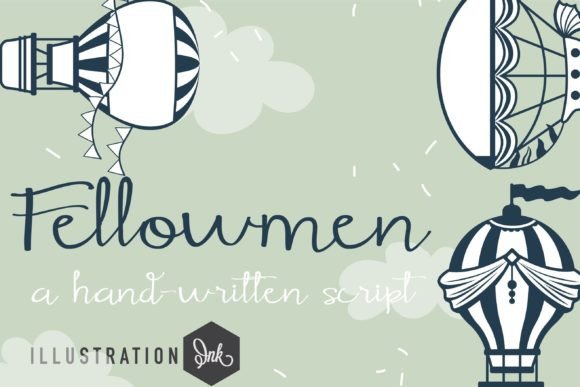
Fellowmen Font: A Quirky Handwritten Script for Your Creative Projects
In the world of typography, fonts play a crucial role in conveying the tone and personality of a brand or project. If you’re looking for a unique and eye-catching font to make your project stand out, look no further than Fellowmen Font. This quirky handwritten font is designed to bring a touch of natural charm to your website, svg designs, home decor, branding, blogs, logos, invitations, and more.
What is Fellowmen Font?
Fellowmen Font is a handmade, handwritten script that boasts a traditional cursive style. Its unique, imperfect characteristics make it a perfect fit for projects that require a personal touch. The font’s natural, flowing lines and curves evoke a sense of warmth and friendliness, making it ideal for brands and projects that want to connect with their audience on a more personal level.
Characteristics of Fellowmen Font
Fellowmen Font has several distinct characteristics that set it apart from other fonts. Some of its notable features include:
- Handwritten script: Fellowmen Font is a genuine handwritten script, made by handwriting to bring out the natural characteristics of your project.
- Quirky and imperfect: The font’s handmade nature gives it a quirky, imperfect feel that adds charm and character to your project.
- Traditional cursive: Fellowmen Font features a traditional cursive style, complete with flowing lines and curves.
- Versatile: This font is perfect for a wide range of projects, from websites and svg designs to home decor, branding, blogs, logos, invitations, and more.
Uses of Fellowmen Font
Fellowmen Font is an incredibly versatile font that can be used in a variety of projects. Here are some ideas to get you started:
- Websites: Add a personal touch to your website with Fellowmen Font, perfect for blogs, portfolios, and e-commerce sites.
- SVG designs: Use Fellowmen Font to create unique and eye-catching svg designs for cutting machines, craft projects, and more.
- Home decor: Add a touch of personality to your home decor with Fellowmen Font, perfect for wall art, signs, and other decorative items.
- Branding: Use Fellowmen Font to create a unique and memorable brand identity for your business or organization.
- Blogs: Add a personal touch to your blog with Fellowmen Font, perfect for bloggers who want to stand out from the crowd.
- Logos: Create a unique and eye-catching logo for your business or organization with Fellowmen Font.
- Invitations: Use Fellowmen Font to create beautiful and unique invitations for weddings, parties, and other special events.
Benefits of Using Fellowmen Font
There are many benefits to using Fellowmen Font in your projects. Here are just a few:
- Unique and eye-catching: Fellowmen Font is a one-of-a-kind font that will make your project stand out from the crowd.
- Personal touch: The font’s handmade nature gives it a personal touch that will connect with your audience on a more personal level.
- Versatile: Fellowmen Font can be used in a wide range of projects, from websites and svg designs to home decor, branding, blogs, logos, invitations, and more.
- Easy to read: Despite its quirky nature, Fellowmen Font is easy to read and understand, making it perfect for body text and other large blocks of text.
Tips and Tricks for Using Fellowmen Font
Here are some tips and tricks to help you get the most out of Fellowmen Font:
- Use it sparingly: Fellowmen Font is a bold and eye-catching font, so use it sparingly to avoid overwhelming your design.
- Mix and match: Combine Fellowmen Font with other fonts to create a unique and interesting contrast.
- Experiment with colors: Try out different colors and color combinations to find the perfect match for your design.
- Pay attention to spacing: Make sure to leave enough space between lines and around text to ensure that Fellowmen Font is easy to read.
Fellowmen Font is a unique and eye-catching handwritten script that can add a personal touch to your project. With its quirky, imperfect characteristics and traditional cursive style, it’s perfect for a wide range of projects, from websites and svg designs to home decor, branding, blogs, logos, invitations, and more. By following the tips and tricks outlined in this article, you can get the most out of Fellowmen Font and create a design that truly stands out.
- What is Fellowmen Font?
- Fellowmen Font is a handmade, handwritten script that boasts a traditional cursive style.
- What is Fellowmen Font used for?
- Fellowmen Font can be used in a wide range of projects, from websites and svg designs to home decor, branding, blogs, logos, invitations, and more.
- Is Fellowmen Font easy to read?
- Yes, despite its quirky nature, Fellowmen Font is easy to read and understand, making it perfect for body text and other large blocks of text.